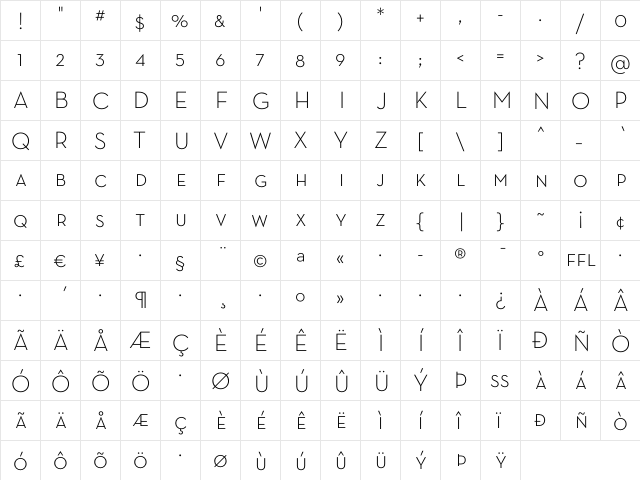
Neutra Text Light SC Regular
| Designer | Christian Schwartz |
Design Context for Neutra Text Light SC Typeface
Neutra Text Light SC takes a measured approach to typography — its balanced proportions and neutral character make it a reliable workhorse for both digital and print work. Its slender proportions lend an understated elegance to any composition.